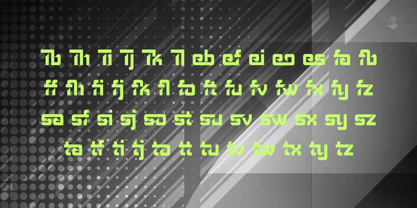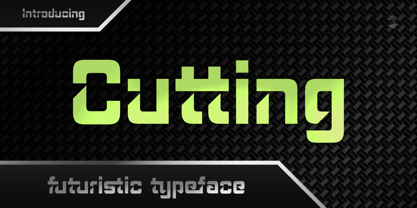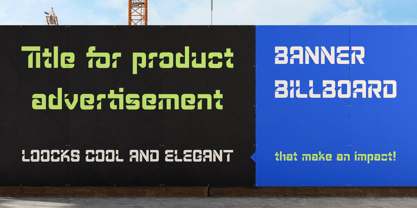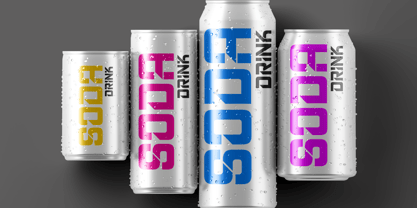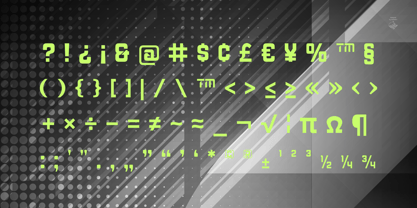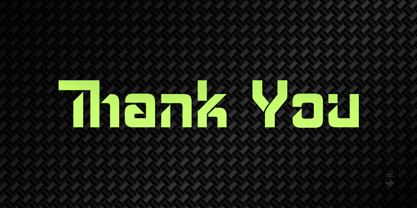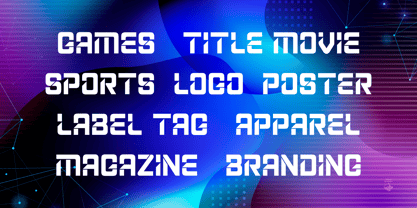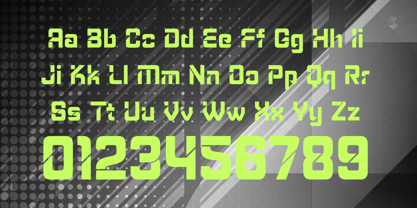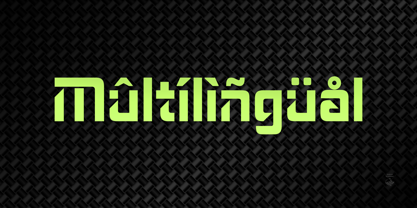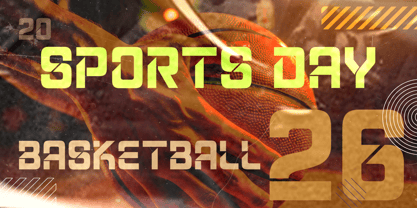
Cutting
by Haniefart
The Cutting Font Family was designed by Hanif Maulazi and published by Haniefart. Cutting contains 1 styles.
Cutting is a futuristic, elegant and athletic handcrafted font, a unique, beautiful and modern look. Cutting comes with upper and lower case letters, as well as punctuation. Suitable for corporate branding, movie titles, magazine covers, logos, template titles and also for sports teams and many more.